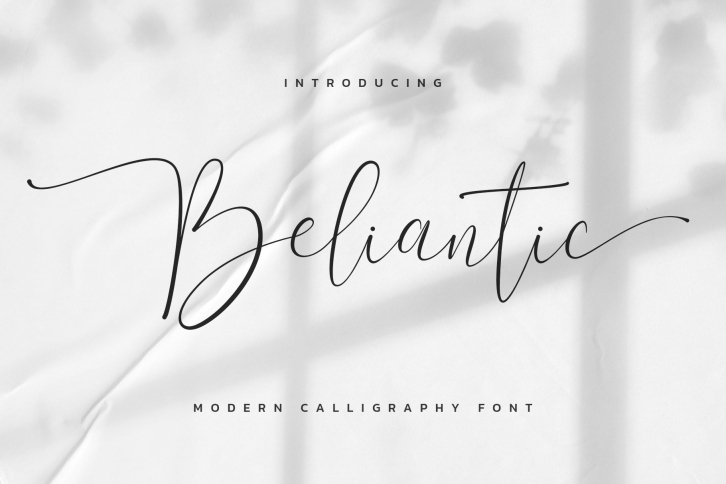
Beliantic is a gorgeous font that was realeased on November 23, 2021. The font can be used in many style contexts and design environments. Perfect for invitations, magazines, websites, logos, and more! It was designed by Hoperative Design and the file size is 13.96 MB. Thanks for checking out this font!